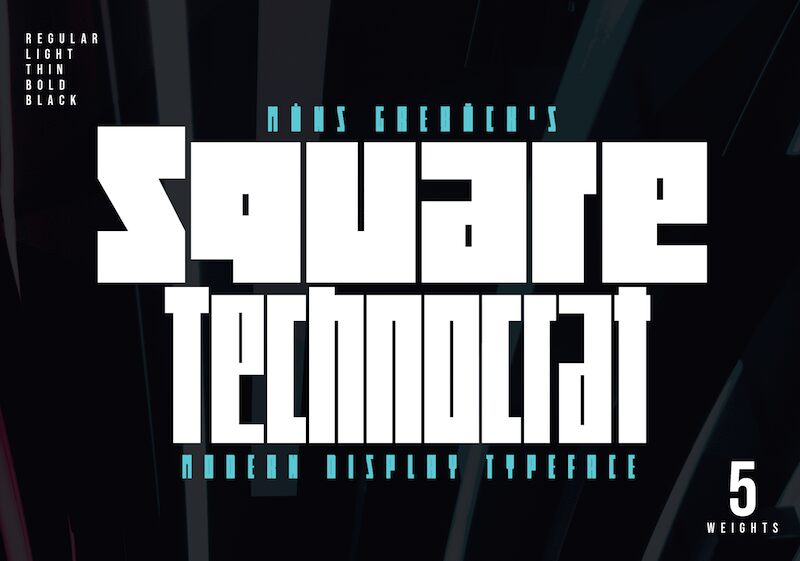
Square Technocrat PERSONAL Regular
Square Technocrat, designed by Mans Greback, is a striking display font that combines sharp geometric shapes with a techno style. With its extra-bold weight and extra-condensed width, this font exudes strength and modernity.
Drawing inspiration from cube-like forms and contemporary architecture, Square Technocrat is ideal for projects that demand a bold and stable presence. Whether it's futuristic branding, tech-inspired logos, or cutting-edge advertisements, this font family will add a touch of structure and sophistication to your design.